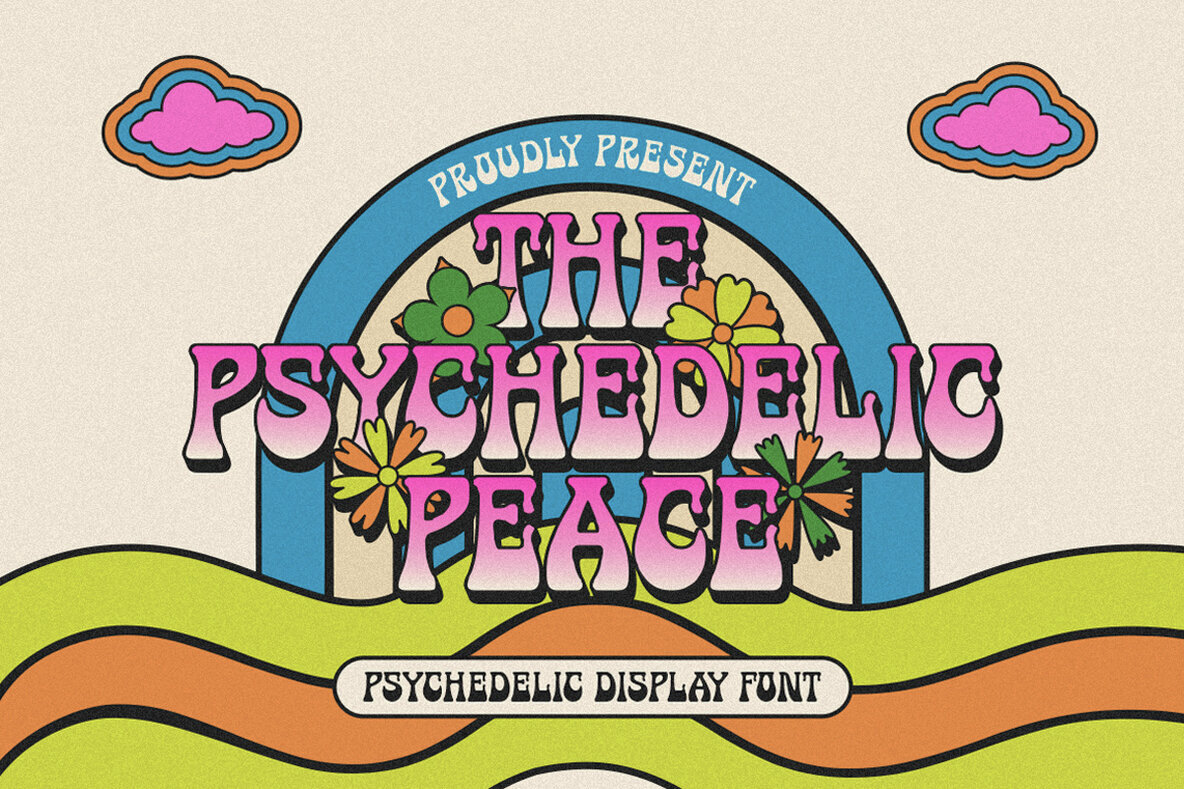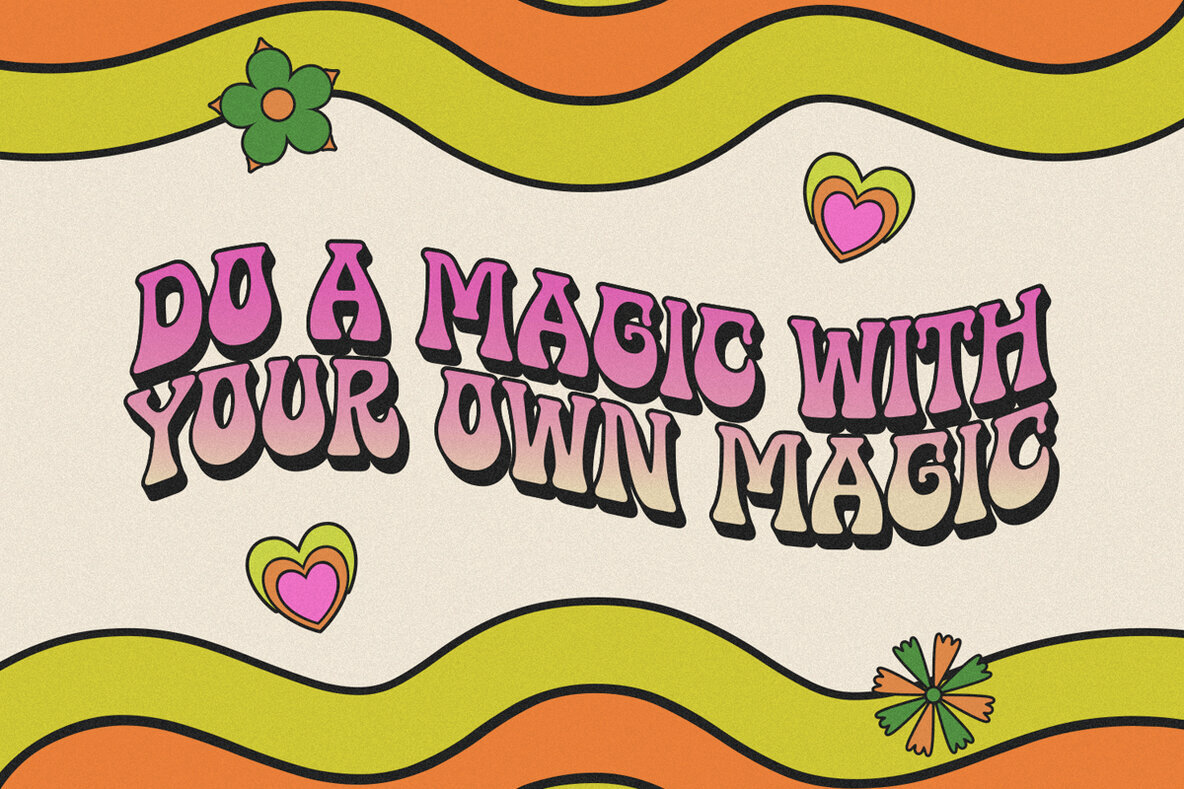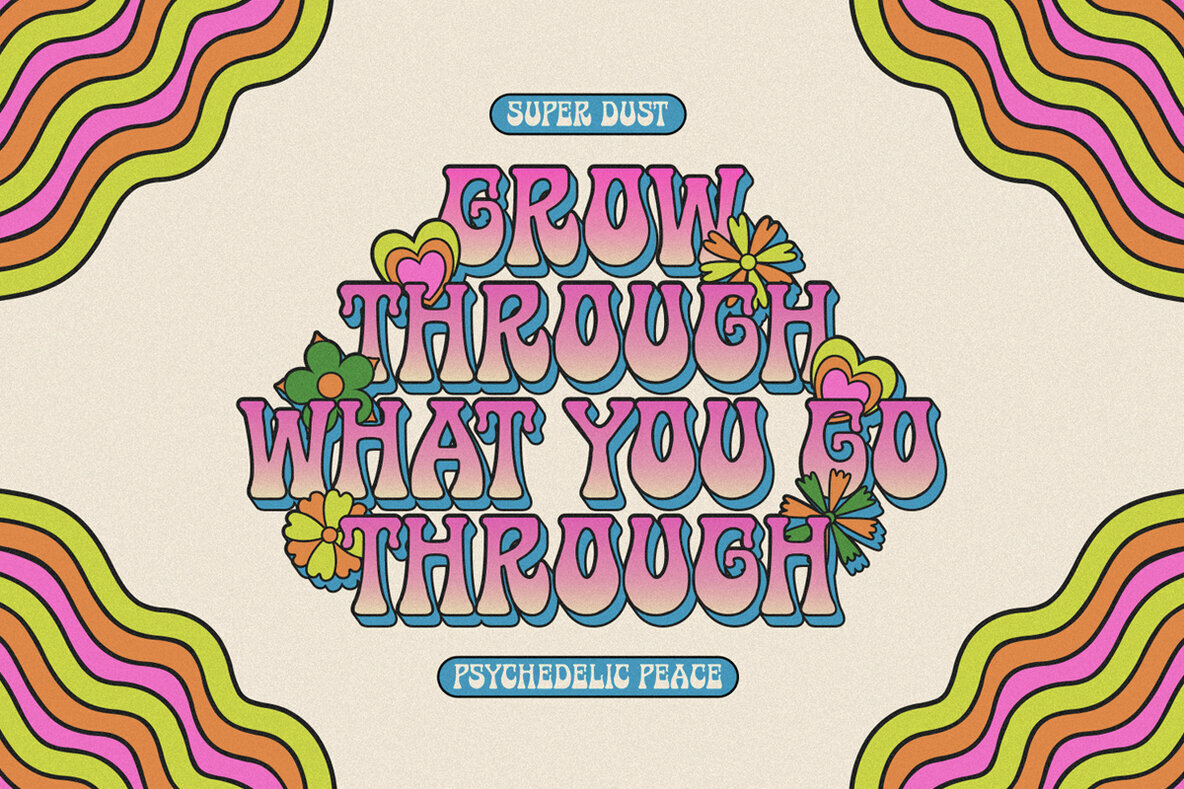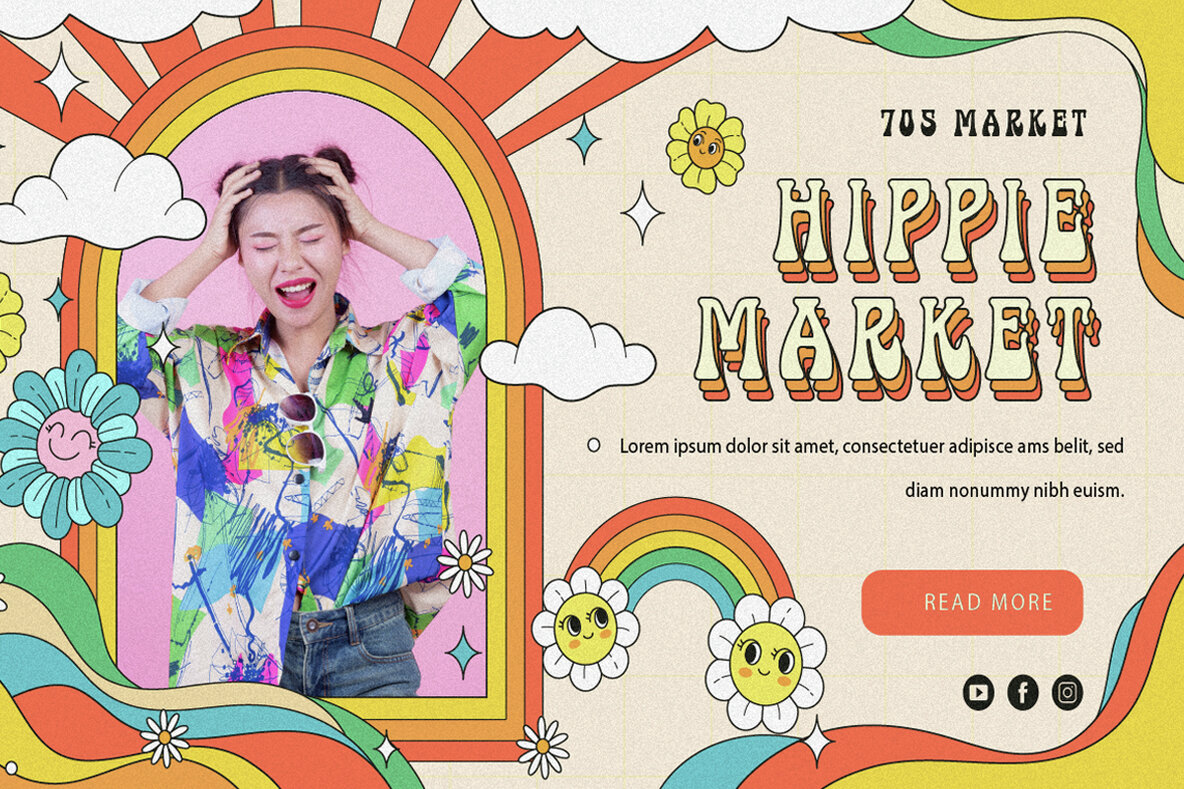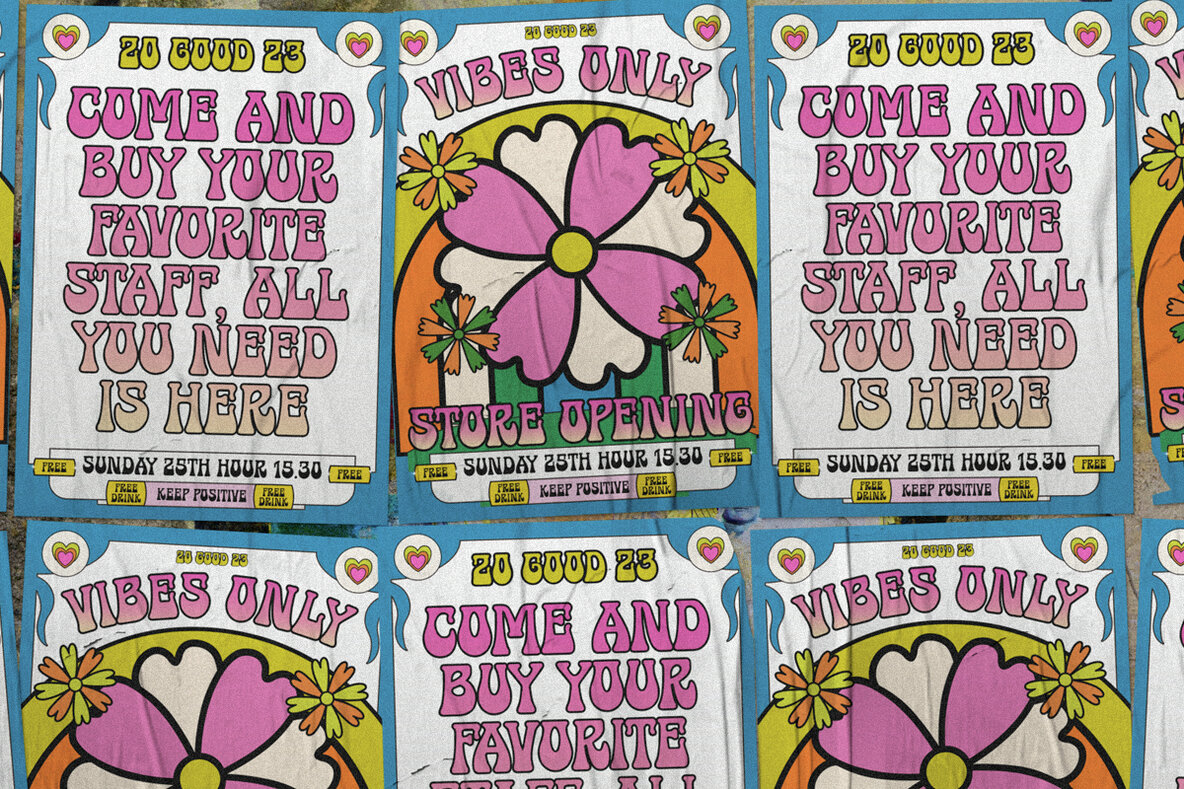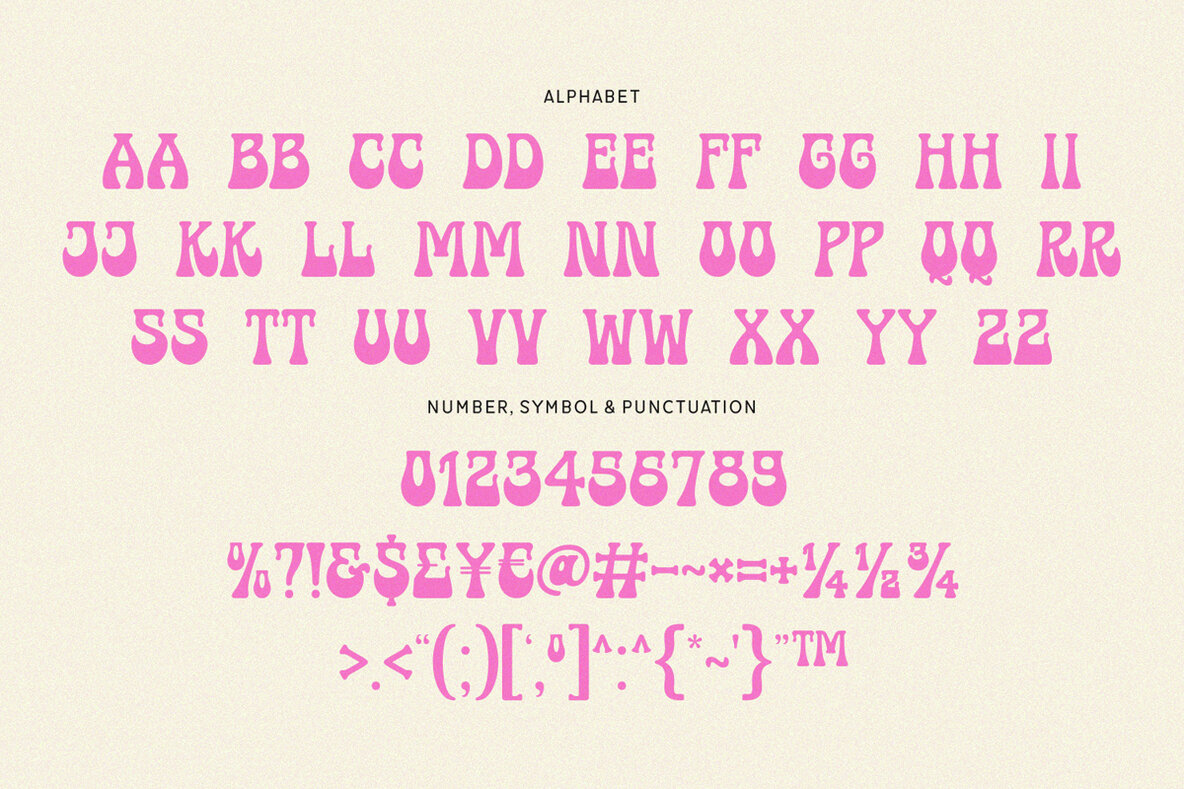
The Psycedelic Peace Font
The Psychedelic Peace Regular
Step back into the vibrant aesthetics of the 60s and 70s with The Psychedelic Peace, a bold and captivating display font. This retro-inspired typeface embodies the essence of love, peace, and good vibes, making it an ideal choice for designers aiming to evoke the groovy spirit of the psychedelic era.The Psychedelic Peace: Retro-Inspired Display Font